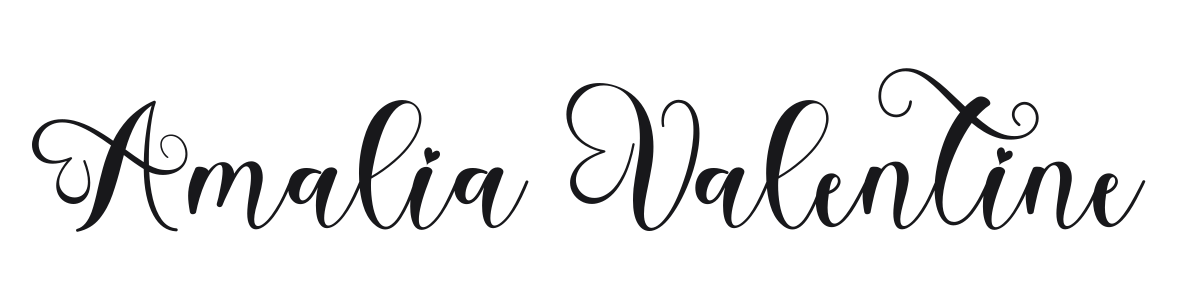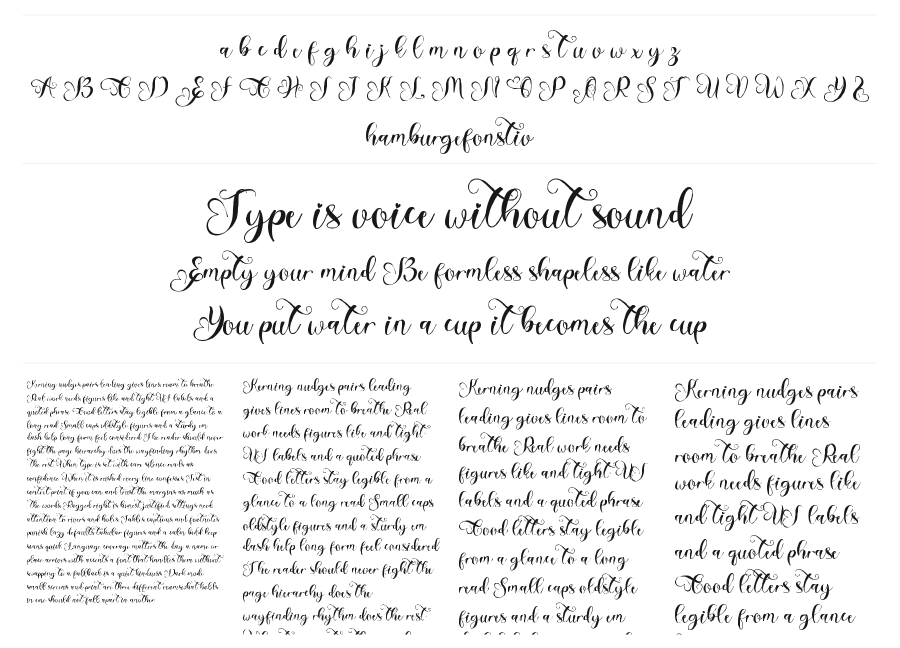
Amalia Valentine
Amalia Valentine is a romantic calligraphic script with lush swash flourishes and a heart detail woven into the design. High stroke contrast between hairline upstrokes and bold downstrokes gives it a hand-lettered copperplate quality, while the bouncy baseline keeps it feeling festive rather than stiff. It suits wedding stationery, valentines, branding, and anywhere a warm, celebratory handwriting style is needed.